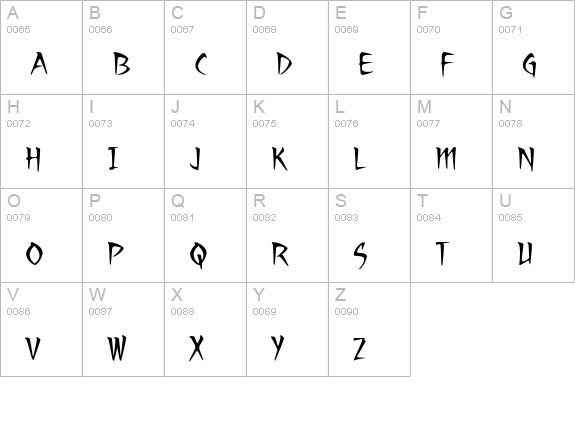
RagingRedLotus BB Font Details
RagingRedLotus BB font is a bold and dynamic typeface that exudes power and energy. Its strong, angular letterforms are perfect for making a statement in headlines, posters, or branding materials. This striking font features sharp edges and a fiery red color that commands attention and leaves a lasting impression. What's even better is that RagingRedLotus BB font is available for free download at FontsMarket.com. This means you can easily add this impactful font to your design arsenal without any cost. Whether you're working on a project that needs a fierce edge or simply want to make a bold statement, RagingRedLotus BB font is the perfect choice. Download it today and unleash the power of this striking typeface in your designs.